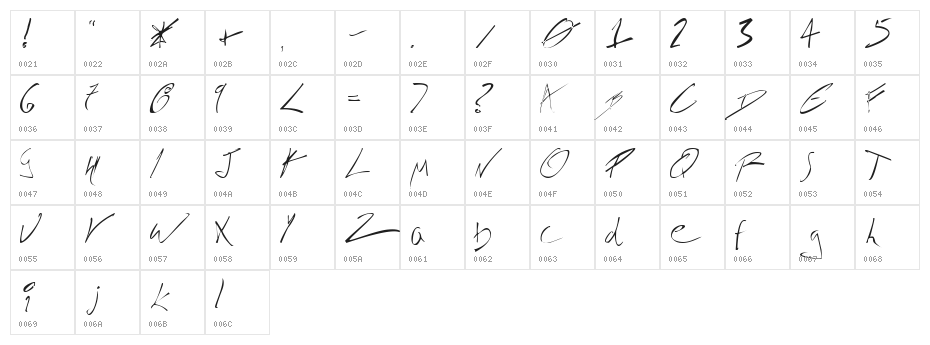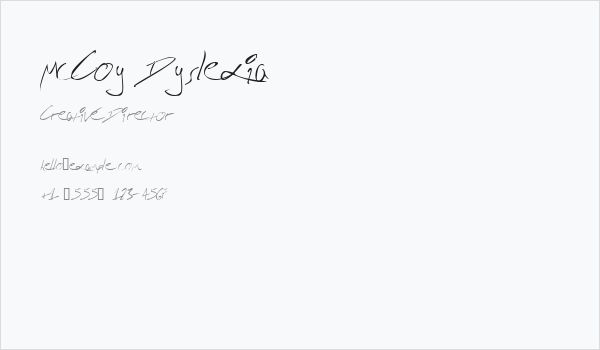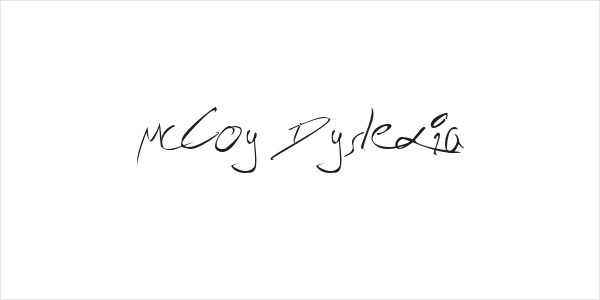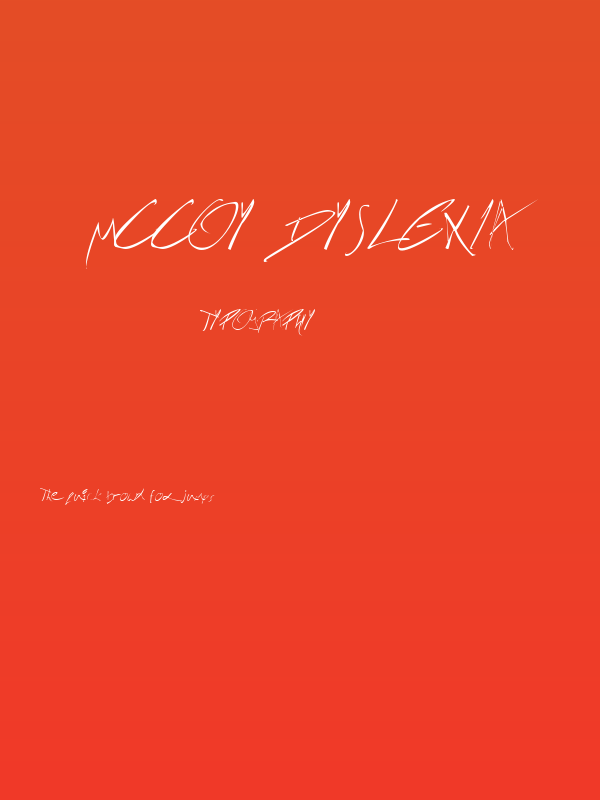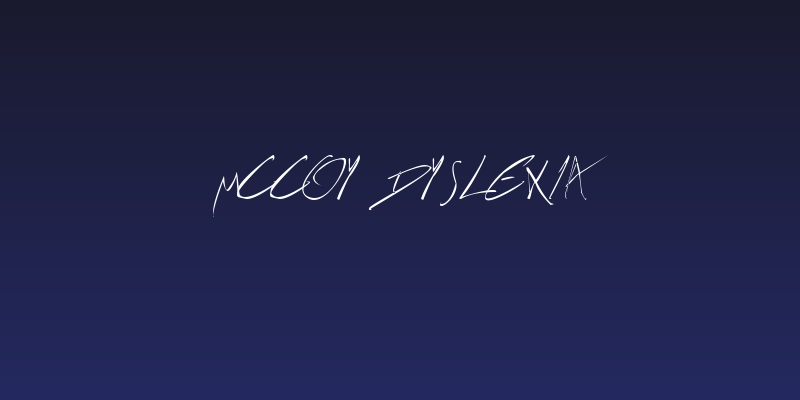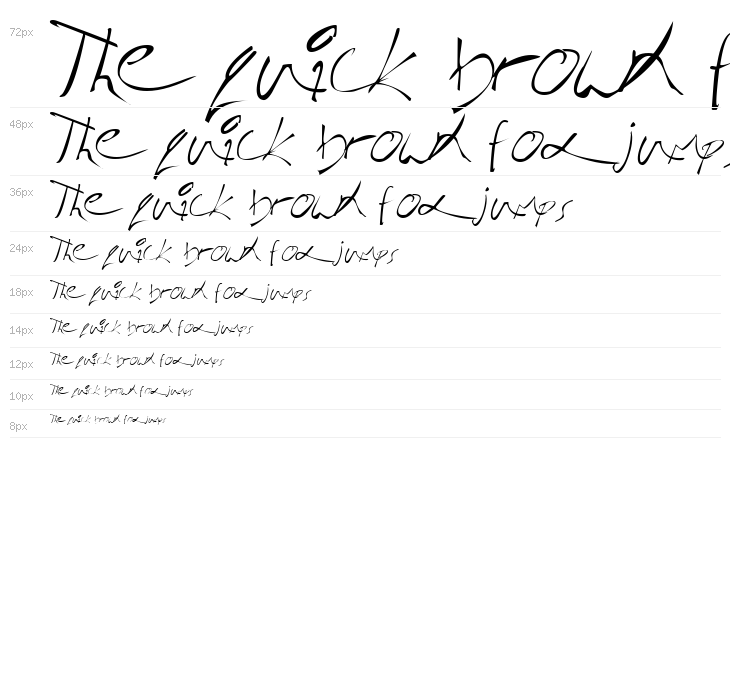
McCoy Dyslexia Font
McCoy Dyslexia Description
This font features an expressive, handwritten style with a dynamic and fluid appearance. The letters are characterized by their irregular, flowing lines and varying stroke widths, giving it a lively and spontaneous feel. The uppercase and lowercase letters maintain a consistent style, with some letters exhibiting exaggerated loops and curves. Numbers and special characters follow the same energetic design, adding to the overall whimsical nature of the font. The unique style makes it stand out, offering a personal touch to any design.
| Use Case | Logos, Artistic projects, Invitations |
| Proposed Projects | Ideal for creative projects such as greeting cards, invitations, artistic posters, and personal branding materials. |